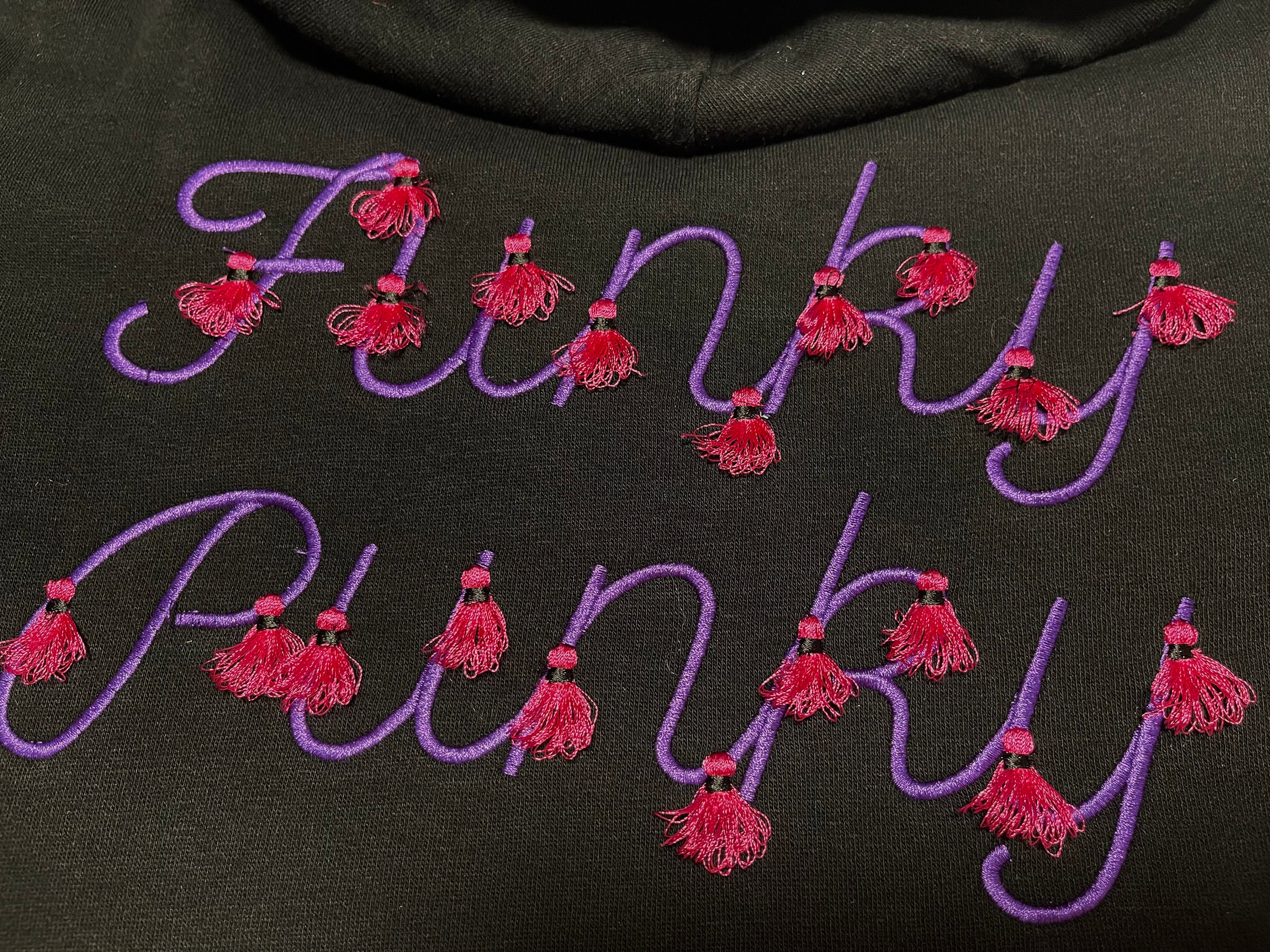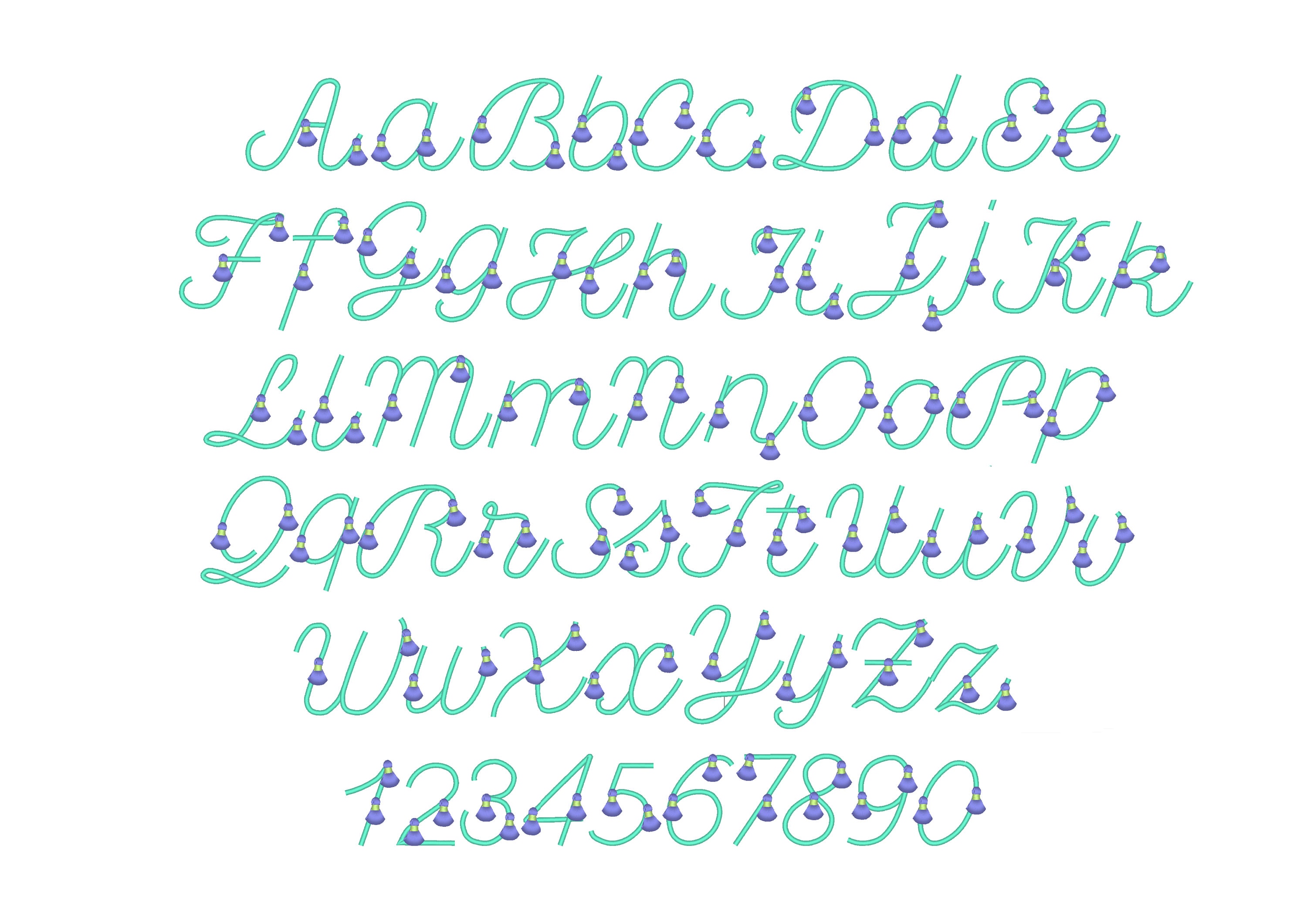
Fringed tassels Fiesta Font line satin stitch alphabet machine embroidery designs fluffy decorative letters from 1 up to 3 inches BX included
Entire alphabet A-Z uppercase and lowercase, and numbers 0-9.
You may fringe all tassels.
100 % safe to wash (the design has a special tack seam that holds a fringe in place)
How to make fringe.
It is easy. Embroider the design as usual. Large satin stitches will be loose. Once you complete stitching the design, turn over your hoop to see a reverse side, and cut the bobbin thread, along the large satin stitches. Turn the hoop back over and fluff up the "fringe" around.